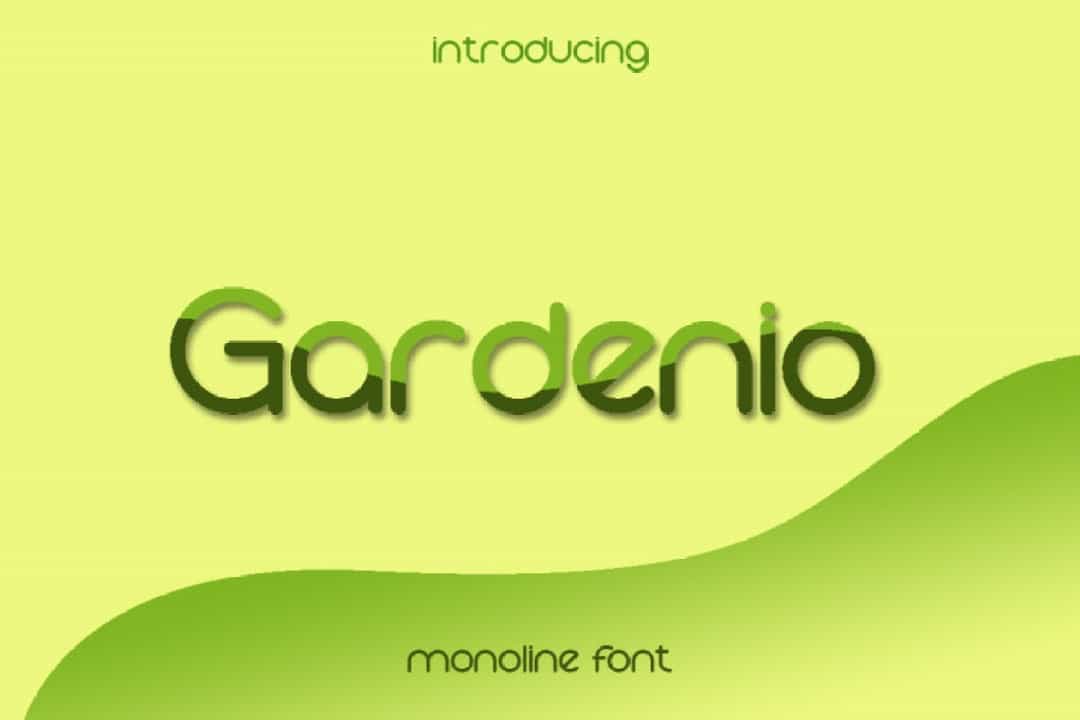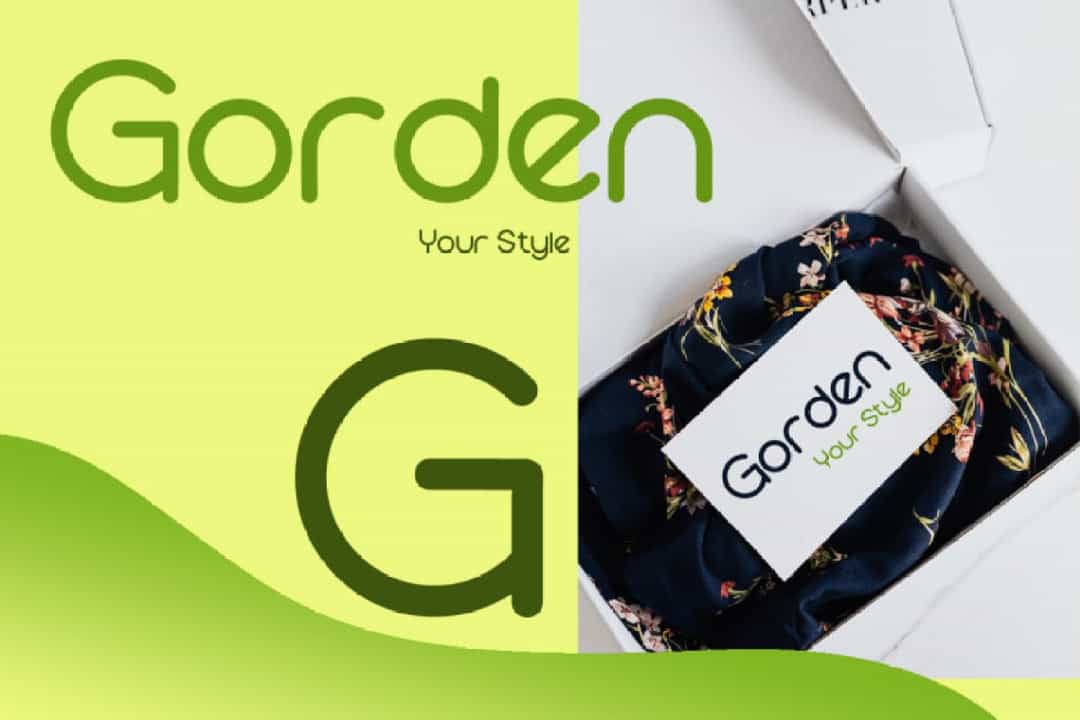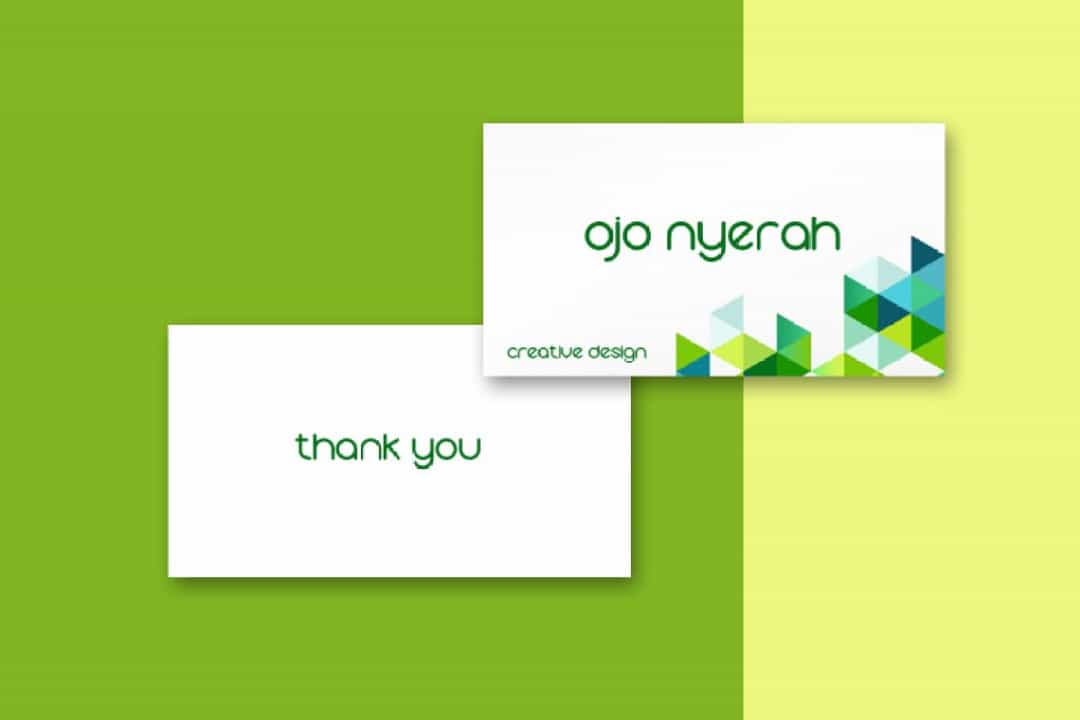
Gardenio is a sophisticated monoline sans-serif typeface. This means that it is easy to convey certain messages within the designs and at the same time the font adds a certain flair that is ideal for magazine or poster covers, branding or advertising campaigns – thus making Gardenio perfect font for your project!